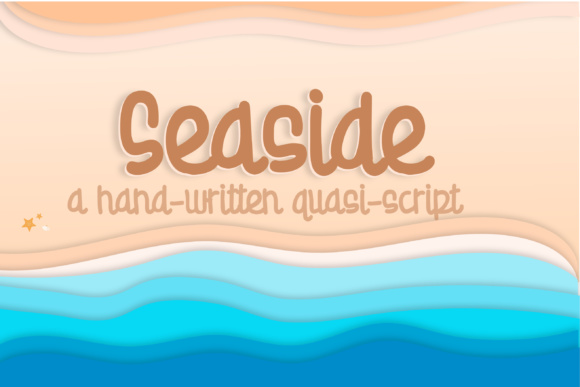
Dive into the world of ZP Seaside Font, a remarkable script font family crafted by the talented artists at Illustration Ink. This hand-written, quasi-cursive font exudes a playful and youthful charm, adding a touch of casual elegance to any project you embark on.
With its whimsical curves and lively strokes, ZP Seaside Font dances across the page, capturing the essence of carefree summer days and sun-kissed beaches. Its carefully crafted glyphs, inspired by the beauty of nature's script, flow effortlessly, creating a harmonious rhythm that draws the reader into your creative vision.
Indulge in the endless possibilities that ZP Seaside Font presents. Whether you're designing captivating logos, crafting heartfelt invitations, or creating eye-catching social media graphics, this font becomes your versatile companion. Its ability to seamlessly blend with a variety of design styles makes it the perfect choice for projects that demand a touch of playful sophistication.
Step into the realm of imagination with ZP Seaside Font and let your creativity soar. Experience the joy of effortlessly expressing your ideas with a font that feels like a warm embrace on a summer's day. Its charming personality and captivating style will leave a lasting impression on your audience, ensuring that your message resonates deeply.